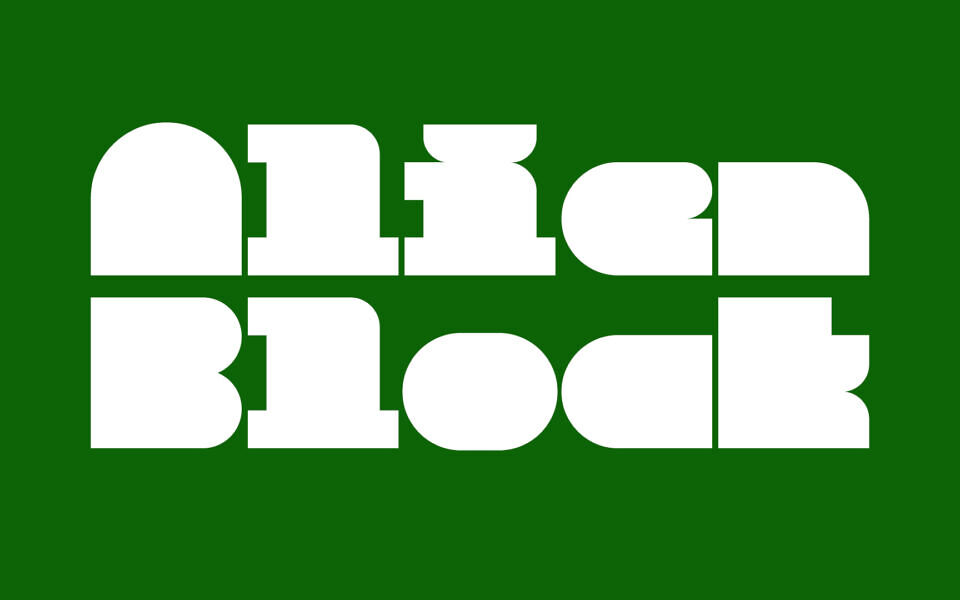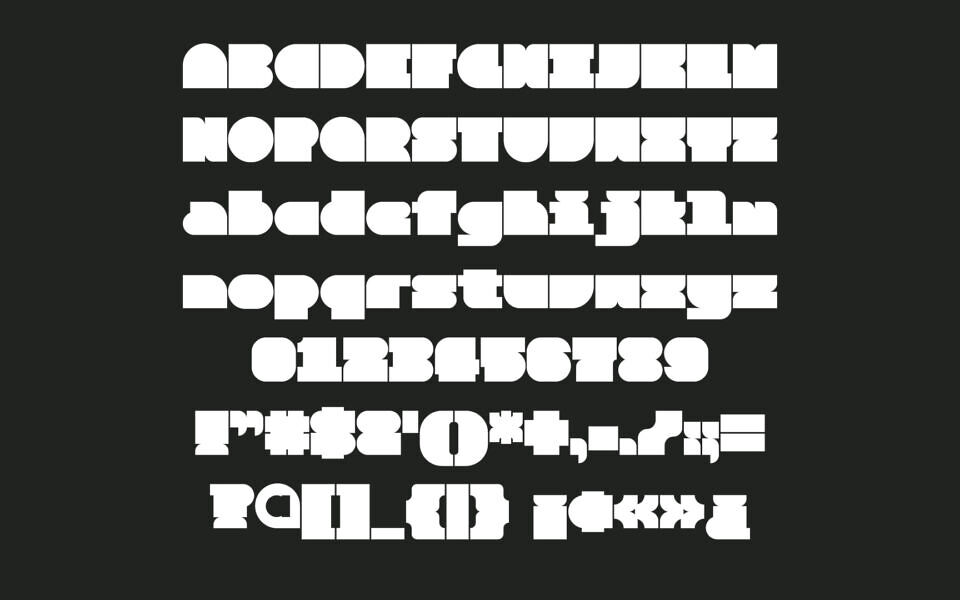
Alien Block is a display typeface designed to expand the possibilities of logos, titles, and typographic composition. It combines the controlled width of monospaced fonts with the optical spacing of proportional fonts, exploring a hybrid approach that brings together the strengths of both systems.
Most glyphs share a common base width, while selected characters and symbols are intentionally adjusted to maintain visual balance. This approach achieves both structural consistency and expressive freedom. Letters can be arranged like aligned tiles or staggered bricks, enabling a wide range of modular layouts.
Alien Block is optimized for short-form display use such as titles and visual compositions. Rather than focusing on long-form reading, it performs especially well in impactful and modular typographic contexts. Alien Block is designed so that anyone can intuitively explore modular typographic composition.